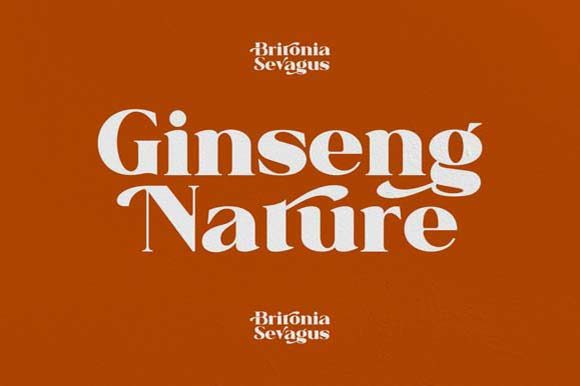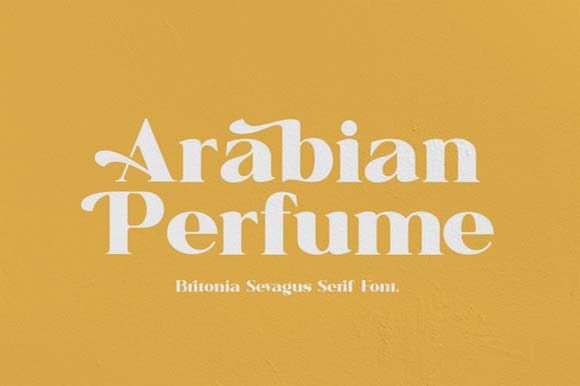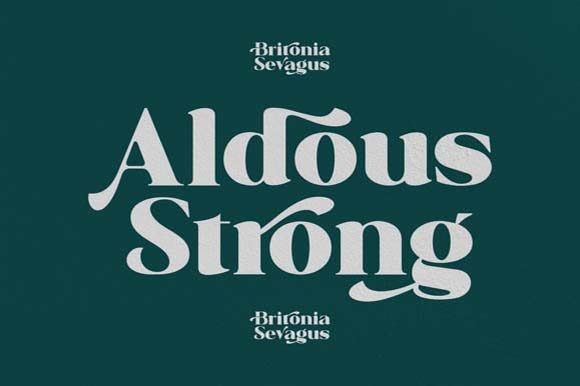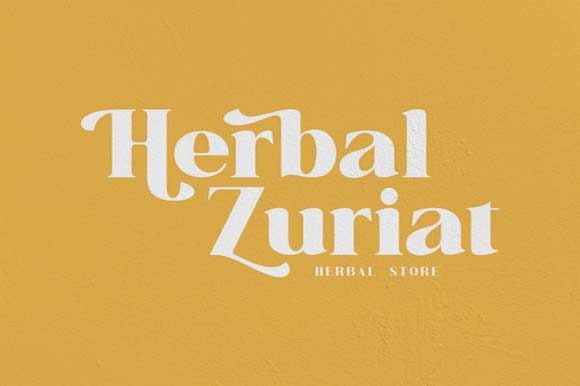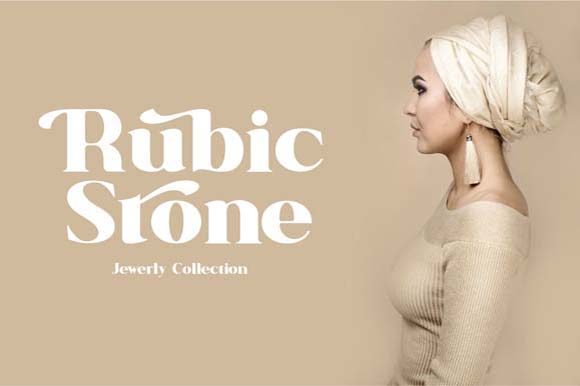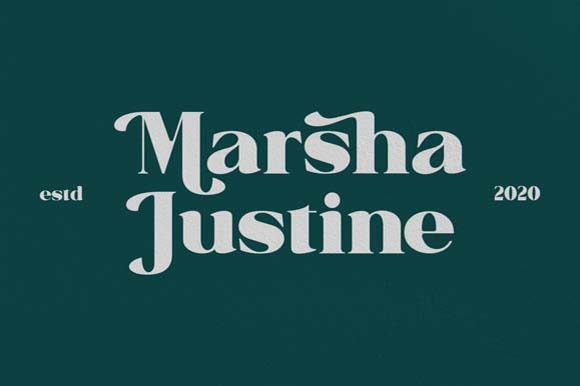
The Font that Stands Out: Britonia Sevagus Font
It’s that moment when a design just clicks – the colors align, the typography flows, and the message shines. For designers, this feeling is what drives us to create something truly unique and memorable. And that’s exactly what the Britonia Sevagus Font offers – a sophisticated serif font that exudes modernity and style.
With its chunky and extended characters, the Britonia Sevagus Font is perfect for logos, branding, packaging design, and more. Its versatility makes it a valuable asset for designers looking to elevate their work and leave a lasting impression. Whether you’re a seasoned pro or just starting out, this font is sure to spark creativity and inspire your next design project.
Britonia Sevagus Font Key Features
- Font Size: 20 fonts, including 6 weights (Thin, Light, Regular, Medium, Bold, Black)
- Character Set: Supports over 100 languages, including Latin, Cyrillic, Greek, and more
- Resolution: Supports high-resolution display at 300 DPI and above
- Unique Characteristics: Britonia Sevagus features a unique blend of modern and vintage elements, with intricate details and ornaments
Britonia Sevagus Font Review
I recently had the chance to work with the Britonia Sevagus font, and I must say it’s an interesting choice. ✨ One thing that stands out is its unique, almost ethereal quality. The font has a very distinctive look, which can be a great asset for projects that require a touch of sophistication and elegance.
Here are some of the things that work well with Britonia Sevagus:
- ✨ Unique and distinctive look, great for adding a touch of sophistication
- ✨ Highly legible, even at smaller font sizes
- ✨ Versatile, can be used for a wide range of applications
- ⚠️ Limited character set, may not be suitable for languages that require a wide range of characters
- ⚠️ Can be quite ornate, which may make it difficult to read for some users
- ⚠️ May not be the best choice for body text, as it can be quite overwhelming
Overall, I think Britonia Sevagus is a solid choice for projects that require a touch of elegance and sophistication. However, it’s not a one-size-fits-all solution, and you may need to carefully consider whether it’s the right fit for your specific needs.
Getting the Most Out of Britonia Sevagus
For optimal results, use the Britonia Sevagus font in headings and titles to add a touch of elegance and sophistication to your designs.
Experiment with different font sizes and colors to create visual hierarchy and balance.
Combine the Britonia Sevagus font with other fonts and design elements to create a unique and cohesive look.
The Britonia Sevagus font is ideal for:
Formal invitations and announcements
Business reports and proposals
Alternatives to Britania Sevagus Font
Playfair Display is a luxurious, high-end serif font suitable for headings and titles. It features elegant connections and beautiful letterforms, making it perfect for upscale branding and designs. When to use: For high-end branding, luxury products, and elegant typography.
Comparison to Britania Sevagus Font: While both fonts have a classic feel, Playfair Display is more ornate and luxurious, making it a better choice for high-end designs. Britania Sevagus Font has a more subtle and understated look.
Didot is a classic, elegant serif font ideal for formal and sophisticated designs. It features a refined and luxurious look, making it perfect for high-end branding, luxury products, and formal invitations. When to use: For formal invitations, luxury products, and high-end branding.
Comparison to Britania Sevagus Font: Didot is more formal and elegant than Britania Sevagus Font, making it a better choice for formal designs. Britania Sevagus Font has a more casual and approachable look.
Lato is a modern sans-serif font suitable for body text and titles. It features a clean and elegant look, making it perfect for minimalist designs and modern branding. When to use: For modern branding, minimalist designs, and body text.
Q: Is Britonia Sevagus available in various font weights?
Yes, Britonia Sevagus is available in multiple font weights, including Light, Regular, Medium, Bold, and Black. This allows designers to choose the perfect weight to match their design’s style and tone.